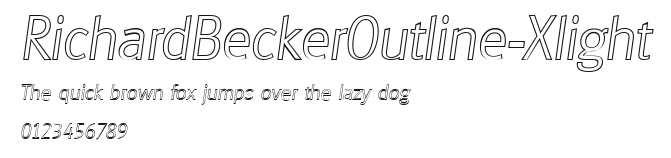
RichardBeckerOutline-Xlight Preview
• Font Name: RichardBeckerOutline-Xlight
• Font ID: Alts:RichardBeckerOutline-Xlight-Italic
• Full Font Name: RichardBeckerOutline-Xlight-Italic
• PostScript Name: RichardBeckerOutline-Xlight-Italic
About RichardBeckerOutline-Xlight.ttf
RichardBeckerOutline-Xlight.ttf is a modern, elegant sans-serif font designed for ultimate readability and visual harmony. Perfect for branding, headlines, web design, and print materials.